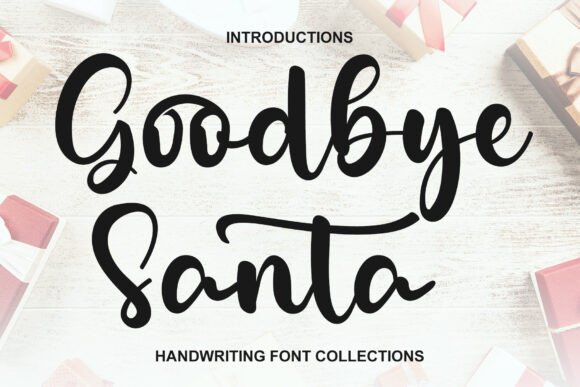
Goodbye Santa Review
As a designer with years of experience in typeface selection, I’ve come across countless fonts that promise to elevate a project—but few deliver on their potential. Goodbye Santa, part of the Script Amp collection, is one that deserves closer inspection. It’s a font that feels personal, nostalgic, and modern all at once. But like any tool, it requires thoughtful application.
The First Impression
Goodbye Santa immediately evokes a sense of warmth and whimsy. Its flowing lines and soft curves suggest a hand-drawn quality, but there’s an underlying structure that makes it feel intentional rather than chaotic. The letterforms are expressive yet controlled, which gives it a unique visual personality. It doesn’t scream “holiday” in a forced way, but it does carry an air of celebration and familiarity.
This font has a mood that leans toward the sentimental. It works best for projects that want to feel approachable, heartfelt, or slightly playful. Think holiday cards, gift tags, or branding that aims to connect emotionally with its audience.
Real-World Application
In logo design, Goodbye Santa can be a strong choice when paired with a more structured typeface. It adds a human touch without overwhelming the design. However, it’s not ideal as the sole typeface in a logo—especially for brands that need to appear professional or timeless. For brand identity, it’s best used as a secondary or accent font.
Packaging design benefits from its charm, especially for seasonal or gift-oriented products. It can add a personal touch to labels, but it’s important to test it at different sizes. At smaller scales, the details may get lost, making it less readable. For editorial design, it can serve as a headline font, but again, spacing and contrast matter.
When used in social media graphics or digital ads, Goodbye Santa stands out. It’s perfect for eye-catching headlines or short phrases that need to convey emotion quickly. However, overuse can dilute its impact. It’s best reserved for key visual elements rather than entire layouts.
Where to Use with Caution
Large headlines might be too much for Goodbye Santa. Its fluidity can make it feel unbalanced if not properly spaced. Similarly, using it in brand marks or decorative accents could lead to visual clutter. If your goal is to create a clean, modern look, this font may not be the best fit.
For premium packaging or high-end marketing materials, consider how the font aligns with the overall aesthetic. While it adds character, it may not convey the same level of sophistication as a serif or sans serif font. In such cases, a more restrained typeface might be preferable.
Readability and Hierarchy
Goodbye Santa excels in short phrases where its personality can shine. However, long blocks of text can be challenging. Its lowercase letters often have intricate details that may not scale well at small sizes. This limits its use in supporting text or body copy.
When building a visual hierarchy, use it for headlines, titles, or key messages. Pairing it with a complementary font—like a bold sans serif or a clean serif—can help maintain balance. This font pairing strategy is essential for maintaining clarity and professionalism in design assets.
Brand consistency is another factor to consider. If your brand relies on a strong, recognizable typeface, introducing Goodbye Santa may require careful integration. It should enhance, not compete with, the existing visual language.
Practical Designer Notes
Before finalizing any project, test Goodbye Santa in black and white. Sometimes, the font’s appeal is tied to its color or texture, which may not translate well in monochrome settings. Also, check its readability at different sizes—especially if it will be used in print or on screens.
Try it on real mockups. A font that looks great on a screen may behave differently when printed. Compare uppercase and lowercase forms to see how they interact. Some script fonts have inconsistent sizing between the two, which can affect layout and spacing.
Experiment with other font styles. How does Goodbye Santa look beside a serif font? A sans serif? A handwritten font? These comparisons can reveal strengths and limitations. It’s also wise to review font pairing guides or consult with other designers to ensure the combination works well together.
Final Thoughts
Goodbye Santa is a creative font with a distinct personality. It’s ideal for projects that benefit from a personal, expressive touch. Whether you're designing for a holiday campaign, a boutique brand, or a digital product, this script font can add a unique flair.
But like any tool, it needs to be used with intention. Understand its strengths and limitations, and pair it wisely. When done right, Goodbye Santa can elevate a design from good to memorable.